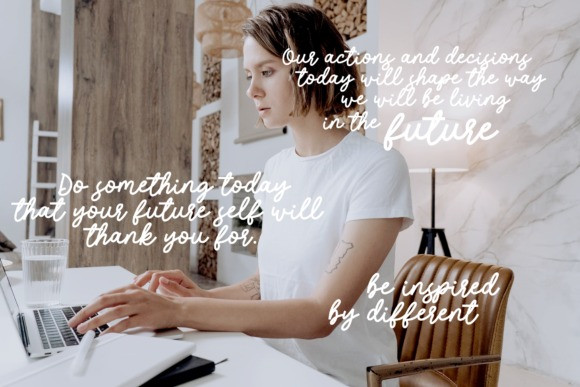
Stamford Bridge Script Font
Stamford Bridge is a romantic and sweet calligraphy typeface. It can be used for various purposes such as logos, wedding invitations, headings, t-shirts, letterhead, signage, labels, news, posters, badges and so much more.